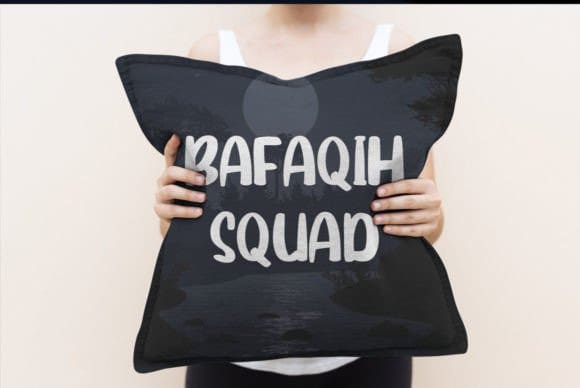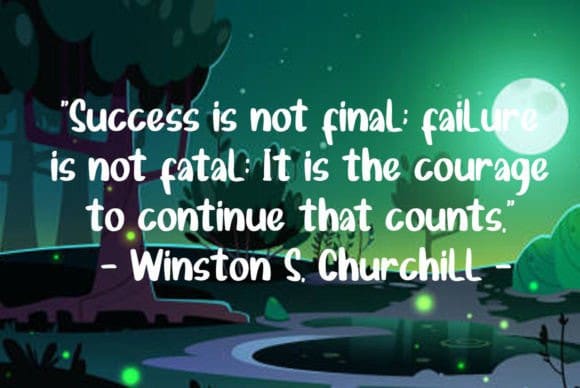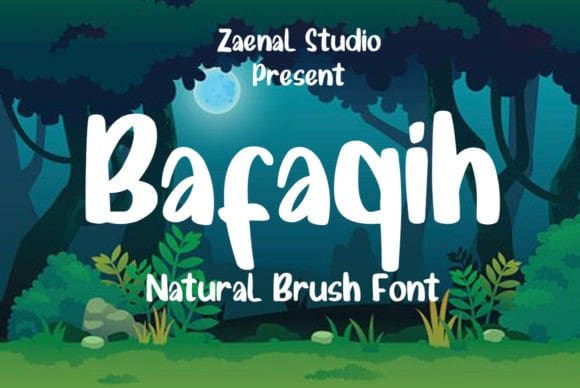
Bafaqih Font
Bafaqih Font is a bold script font perfect for brand and logo designs. It works great in Invitations, Bussiness Cards, Vintage Logos, and more. You will get a classy, elegant, and of course unique logo with this font.